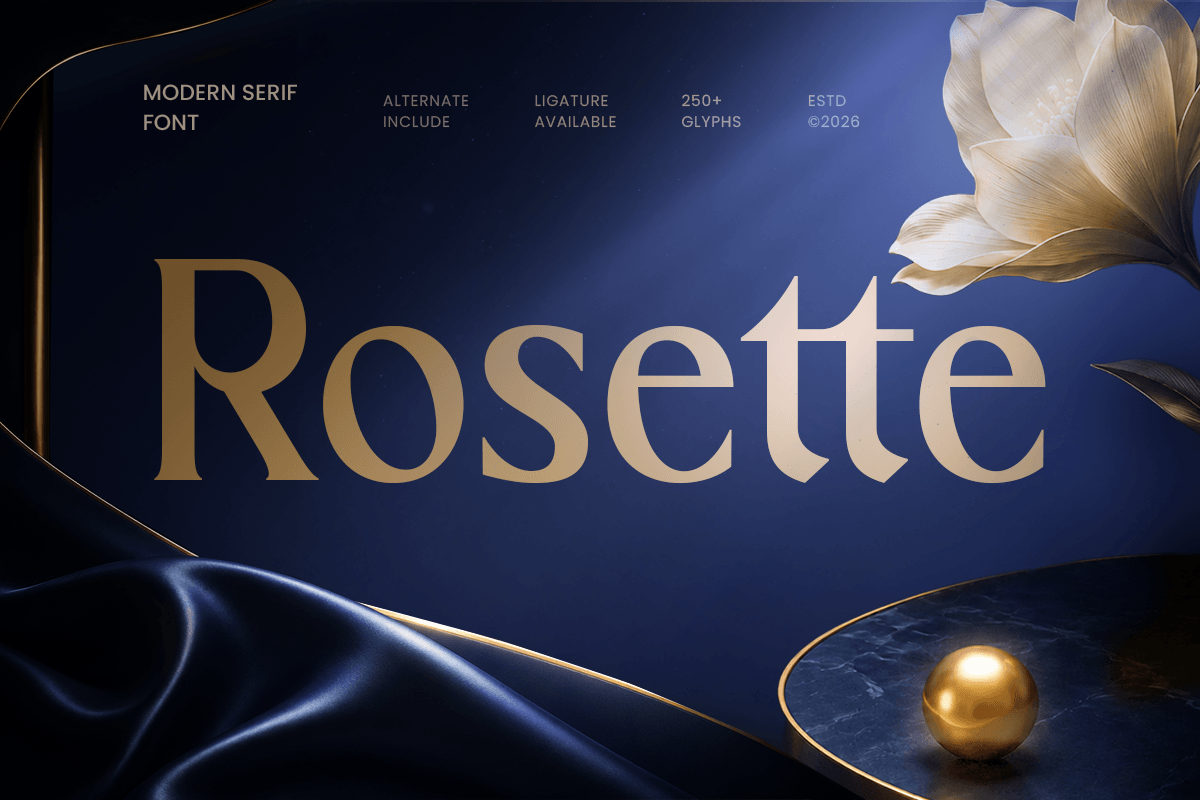
Rosette
-Modern Serif FontRosette - Modern Serif Font
Rosette is a modern luxury serif font designed to bring elegance, refinement, and timeless sophistication to your creative projects. With graceful serif details, balanced contrast, and stylish proportions, this typeface is perfect for luxury branding, fashion editorials, premium packaging, elegant logos, and refined visual identities.
Inspired by modern luxury aesthetics and classic editorial typography, Rosette blends clean structure with a soft, sophisticated character. Its polished letterforms make every composition feel exclusive, memorable, and visually refined, ideal for beauty brands, fashion labels, wedding stationery, boutique packaging, and high-end lifestyle products.
Whether used as a logo mark, magazine title, invitation headline, or packaging centerpiece, Rosette delivers a premium typographic presence that works beautifully across both print and digital media.
Rosette – Modern Luxury Serif Font Features
Modern luxury serif design with refined visual elegance
Perfect for branding, logos, editorials, invitations, and premium packaging
Stylish letterforms with graceful contrast and sophisticated proportions
Ideal for fashion, beauty, wedding, lifestyle, and boutique industries
OpenType features for enhanced typographic styling
Create timeless elegance with Rosette – the perfect modern luxury serif font for premium branding, elegant packaging, and refined editorial design. ✨